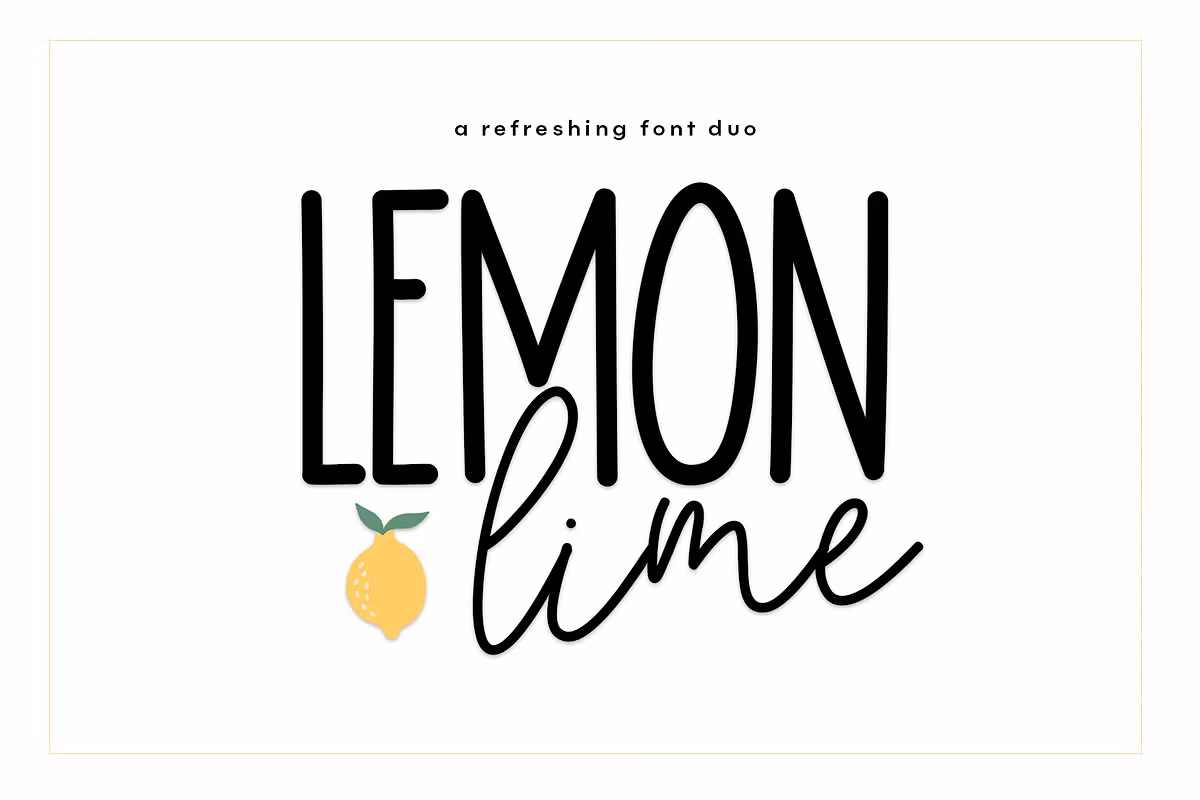
Lemon Lime - A Handwritten Font Duo Free Download
Lemon Lime - A Handwritten Font Duo Free Download is a delightful and playful font combination designed to bring a fresh, creative touch to your projects. With a mix of smooth, flowing script and clean, handwritten sans-serif, this duo offers versatility for logos, branding, invitations, websites, and more. Its casual, artistic style makes it perfect for designs that need a personal, yet professional look.